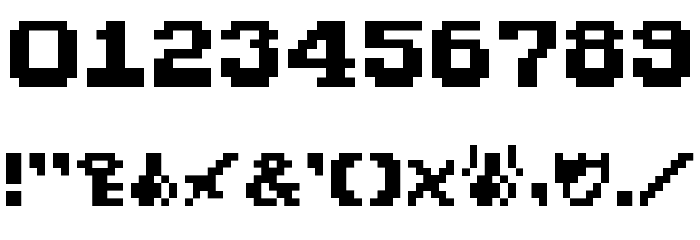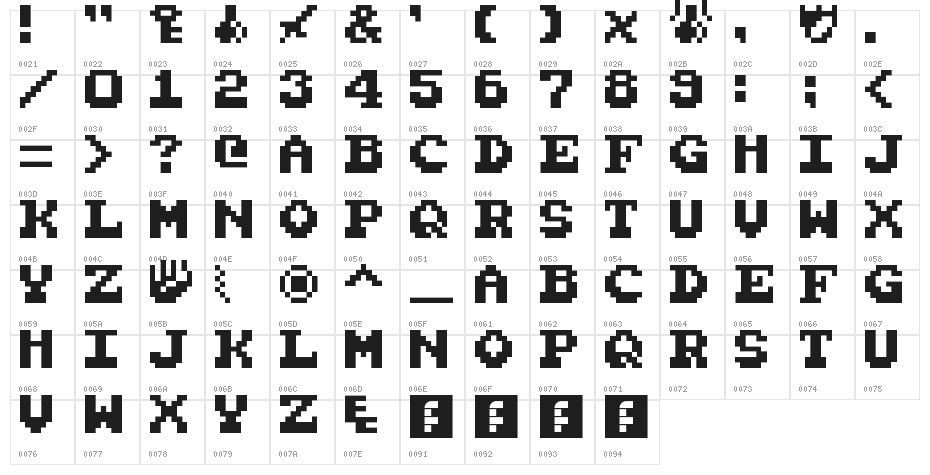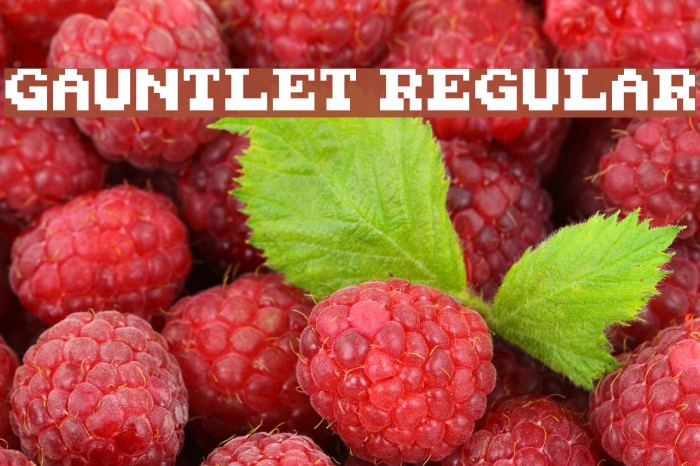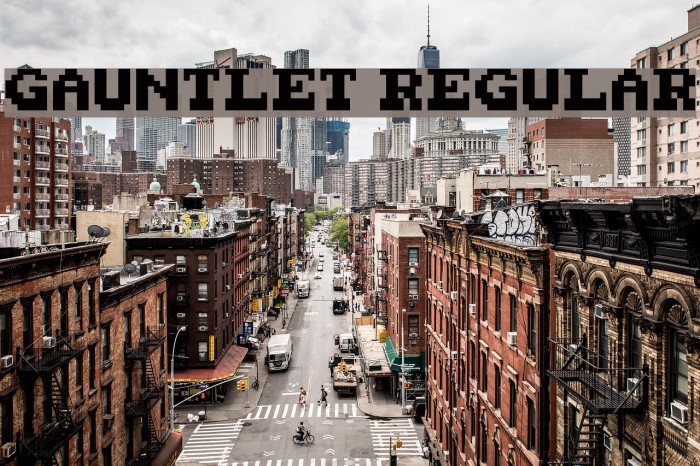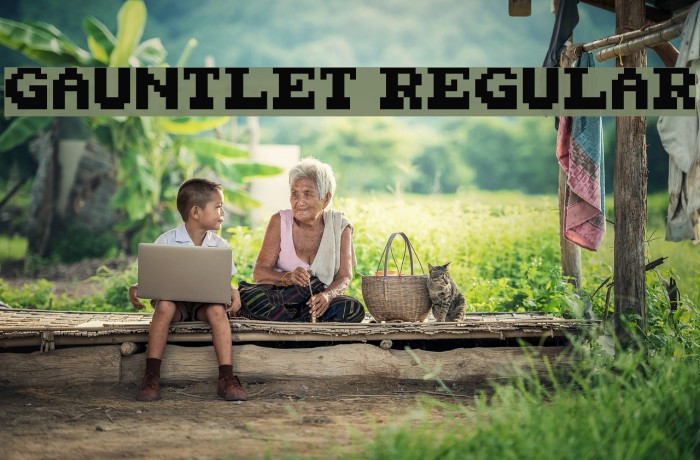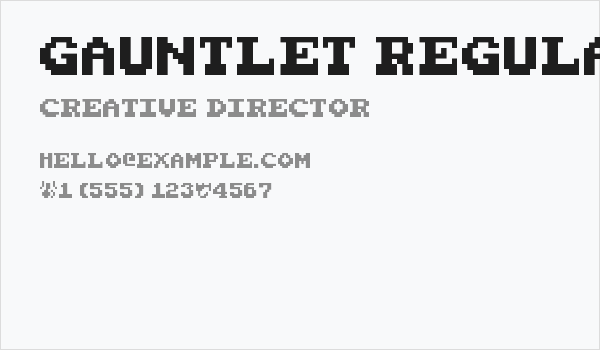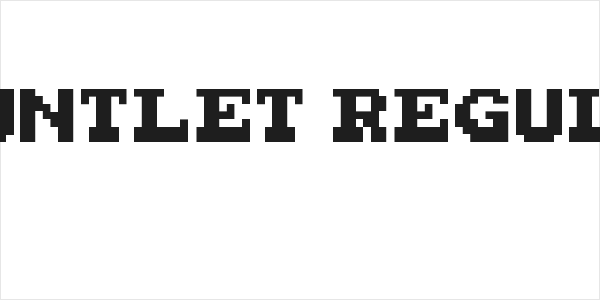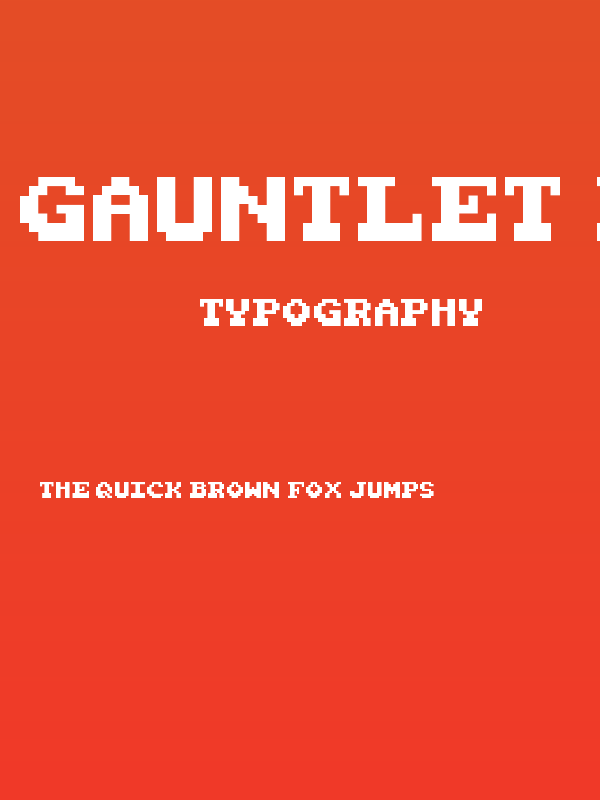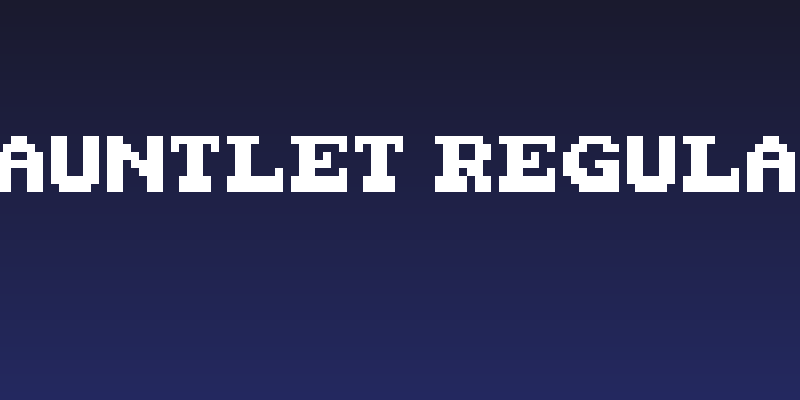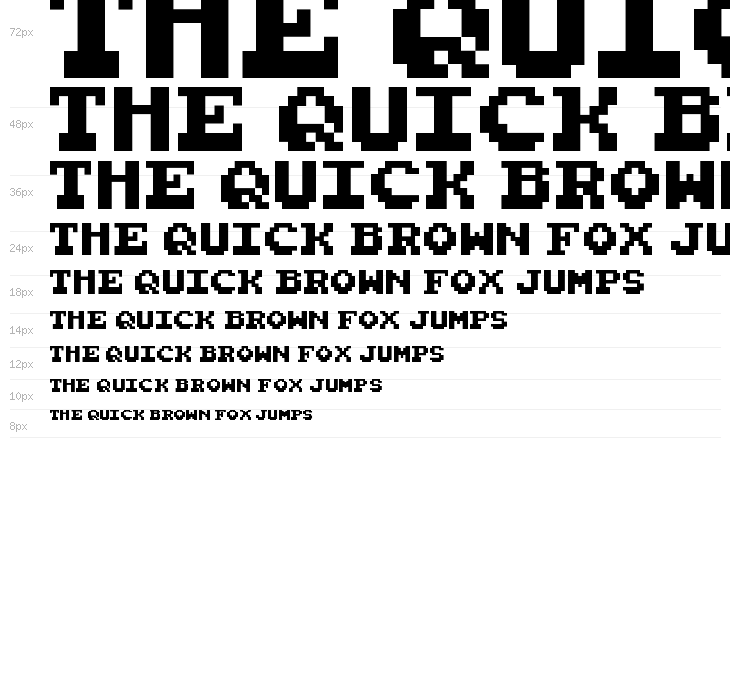
Gauntlet Regular Font
Gauntlet Regular Description
This font features a bold, pixelated design reminiscent of classic video game graphics. Each character is constructed with a blocky, geometric style, giving it a retro, digital appearance. The uppercase and lowercase letters maintain a consistent height, emphasizing the uniformity typical of pixel art. Numbers and special characters follow the same aesthetic, ensuring a cohesive look across all glyphs. The font's distinct style makes it ideal for projects that aim to evoke nostalgia or a vintage gaming atmosphere.
Overall StyleVintage
Proposed ProjectsIdeal for retro video game graphics, digital art projects, nostalgic branding, and themed event posters.